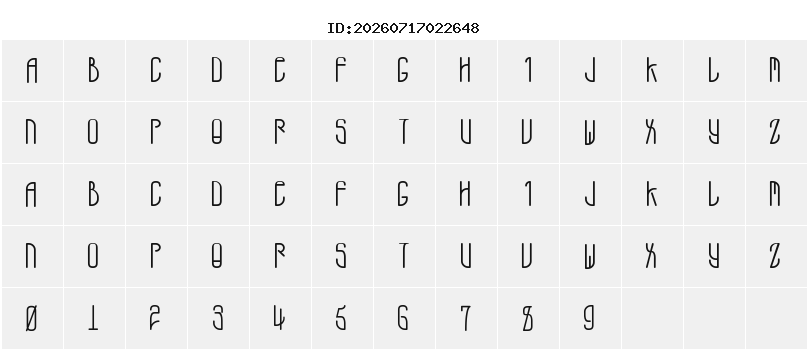
About ADMONO-Regular.ttf
ADMONO-Regular.ttf is a modern, elegant sans-serif font designed for ultimate readability and visual harmony. Perfect for branding, headlines, web design, and print materials.